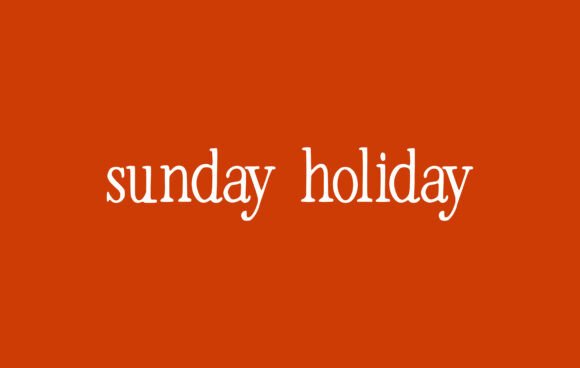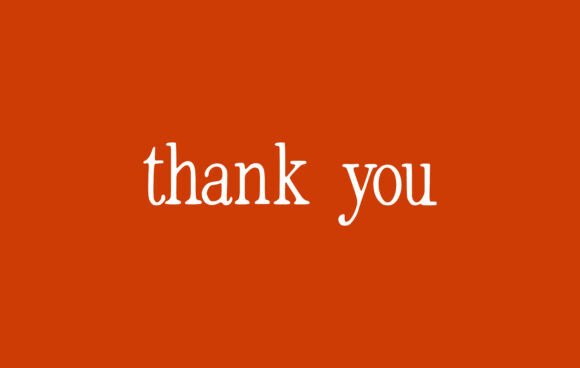
Introduction to Little Font
As you sit at your desk, staring at a blank page, the blank canvas of a creative project staring back at you, it’s easy to get stuck in a rut. The blank space can be daunting, but what if you had the perfect tool to spark your imagination and bring your ideas to life? Enter Little Font, an authentic handwritten font with a romantic touch that’s sure to become a true favorite.
Little Font is more than just a design resource – it’s a game-changer for designers looking to add a personal touch to their work. With its legibility and versatility, this font can elevate your designs from ordinary to extraordinary, whether you’re working on a magazine headline, social media post, or wedding invitation. And the best part? It’s available for free download, complete with a transparent background, making it the perfect addition to any high-quality design.
Key Features of Little Font
- Unique, handcrafted design makes it perfect for adding a personal touch to your project
- Perfect for use in digital and print media, including websites, social media, and marketing materials
Honest Review: Little Font
As a designer, I’m always on the lookout for high-quality design resources to elevate my creative projects. Recently, I stumbled upon Little Font, a free download that caught my eye. In this review, I’ll share my honest thoughts on what works well and what doesn’t.
- Transparency: The transparent background of Little Font makes it a great addition to any design project.
- Quality: The font is high-quality and crisp, making it perfect for printing or digital use.
- Customizability: Little Font is fully editable, allowing you to customize it to fit your design needs.
- Limitations in Expressiveness: While the font is great for simple designs, it may not be suitable for more complex or creative projects.
- Lack of Variety: The font is a bit too simple and lacks the variety of more extensive font collections.
Overall, I’m impressed with Little Font’s potential as a design resource. While it may have some limitations, it’s a great starting point for designers looking for a simple, high-quality font. With a little creativity, I believe Little Font can be a valuable addition to any design project.
Tips for Getting the Most Out of Little Font
Use the Little Font with a transparent background to create custom graphics or icons. Experiment with different font sizes and styles to add visual interest to your design. You can also use the font with other design elements to create a cohesive look.
The Little Font is ideal for creating invitations, social media graphics, and website headers. You can also use the font for creating custom logos or branding materials.